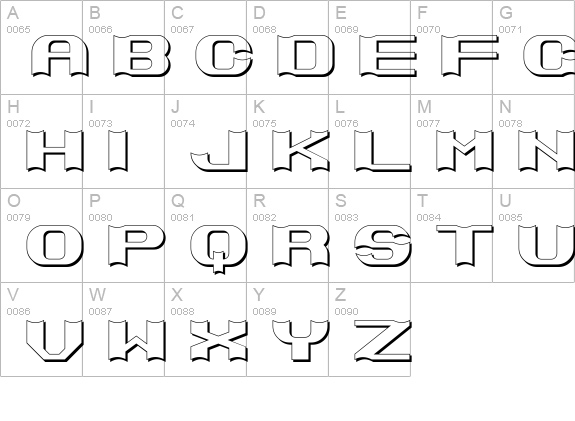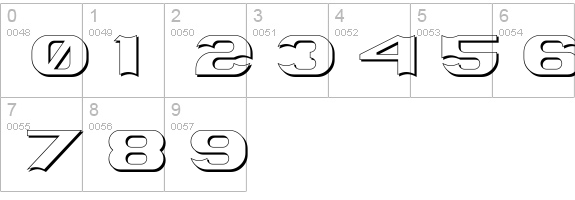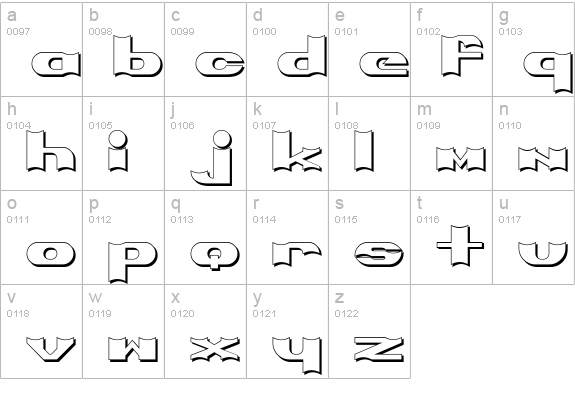
Primo Bright Font Details
Primo Bright font is a modern and elegant typeface that exudes sophistication and style. With its clean lines and sleek design, this font is perfect for adding a touch of class to any project. The graceful curves and sharp angles of Primo Bright make it a versatile choice for a variety of uses, from branding to editorial design. What sets Primo Bright font apart is its unique combination of classic elegance and contemporary flair. Whether you're creating a logo, designing a website, or crafting a brochure, this font will elevate your work to the next level. And the best part? Primo Bright font is completely free to download at FontsMarket.com. So you can enjoy the beauty and versatility of this font without breaking the bank. Don't miss out on this fantastic opportunity to enhance your designs with Primo Bright font today!